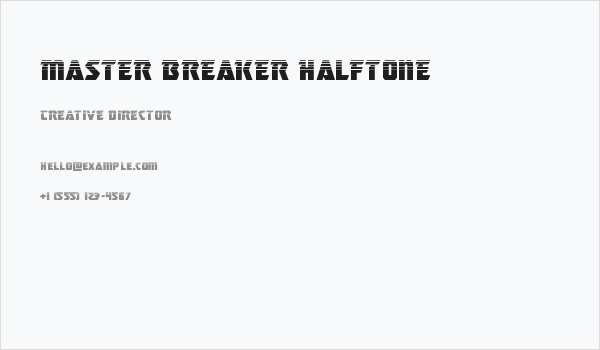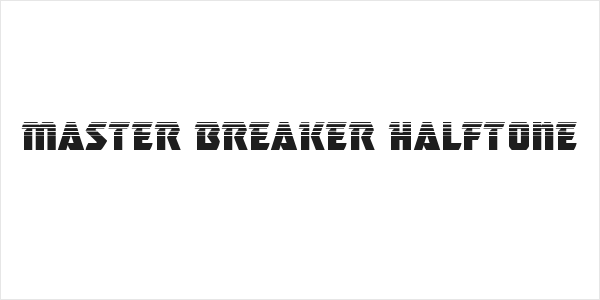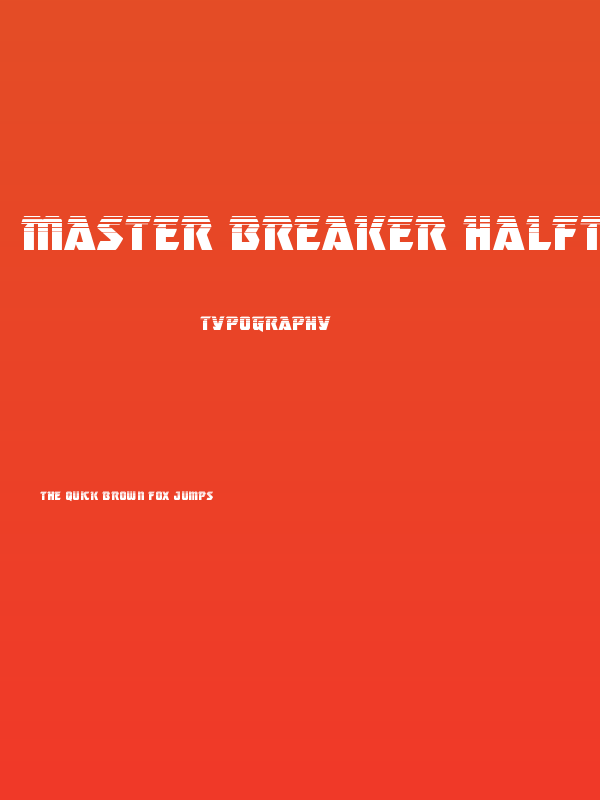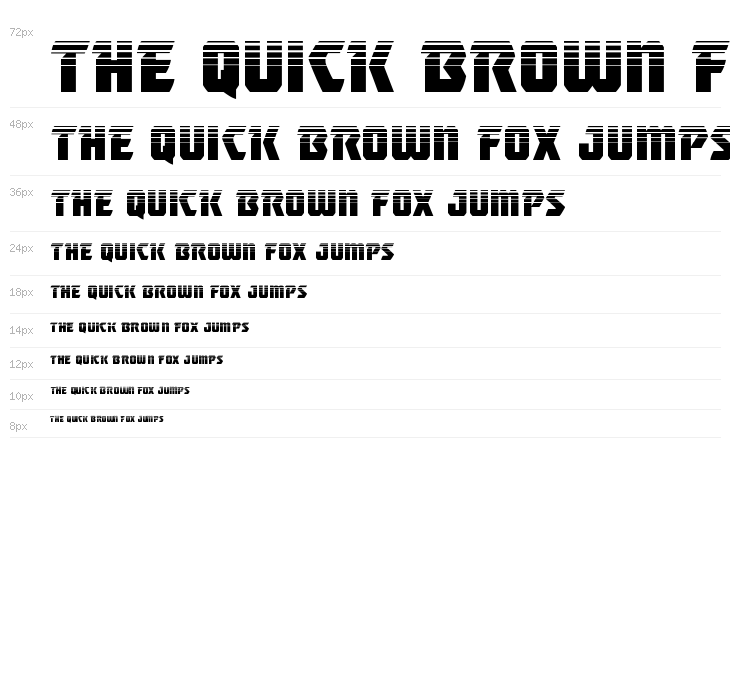
Master Breaker Halftone Font
Master Breaker Halftone Description
This font features a bold, geometric design with a distinct halftone effect, characterized by horizontal lines that create a layered appearance. The uppercase letters are angular and robust, with sharp edges and a futuristic style. The numbers and special characters maintain this bold aesthetic, ensuring consistency throughout. The font's unique style makes it stand out, ideal for projects that require a modern and edgy look. Its strong visual impact is perfect for attention-grabbing headlines or logos.
| Proposed Projects | Ideal for use in branding, posters, video game graphics, and sci-fi themed designs. |